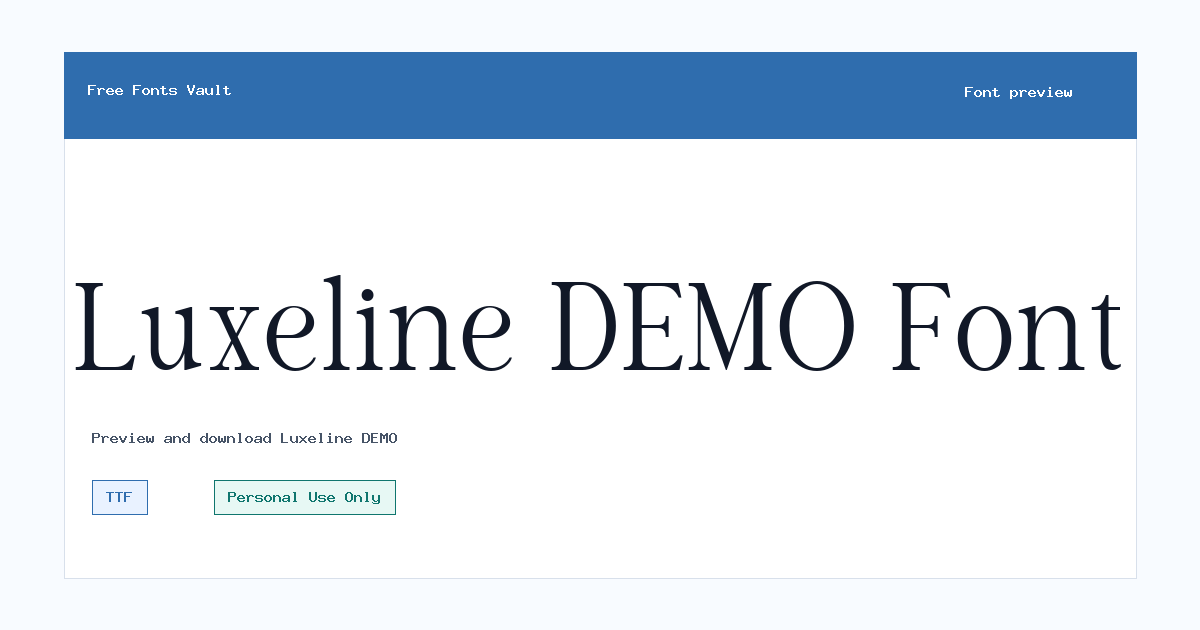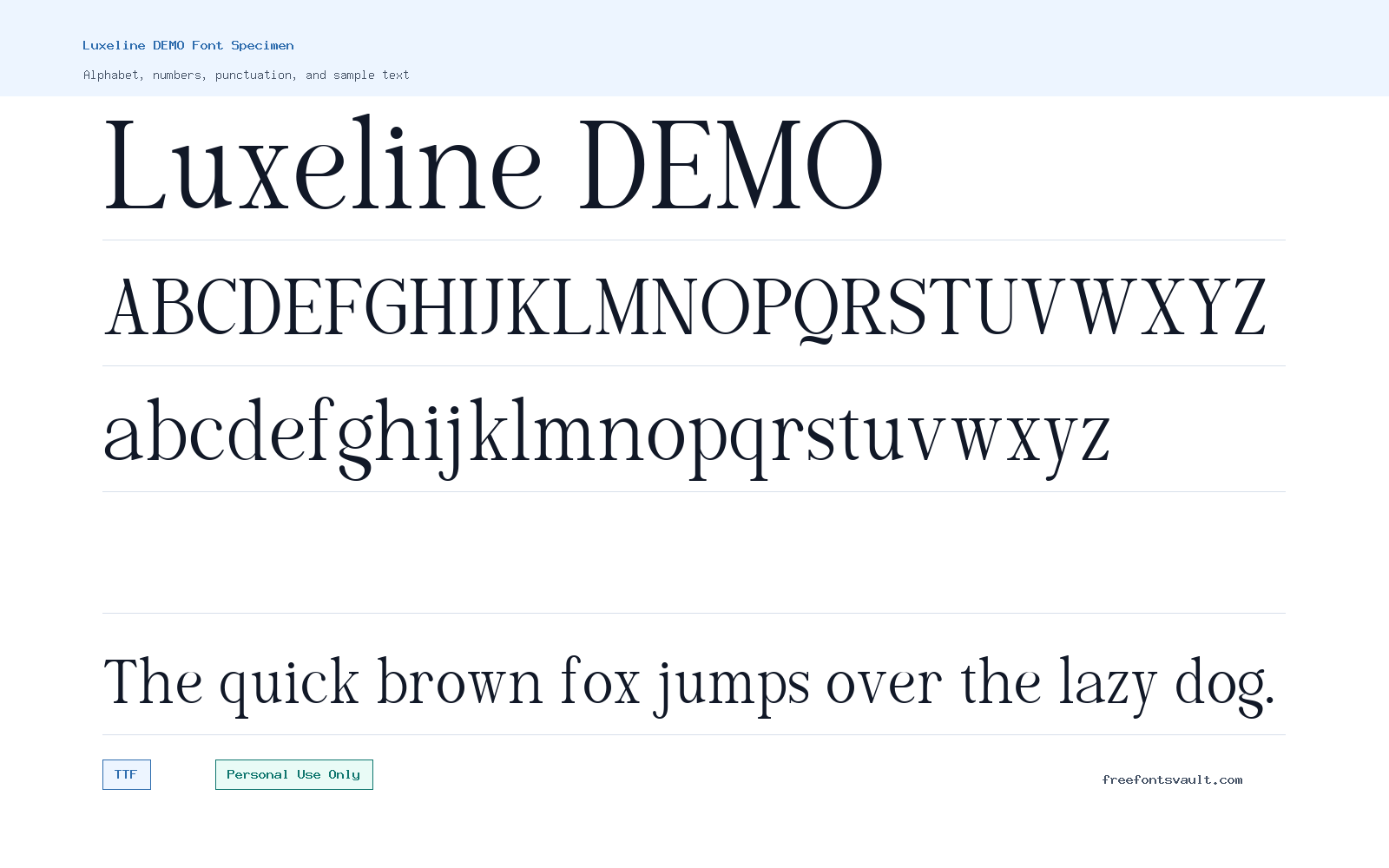
Luxeline DEMO
Luxeline DEMO is a personal-use serif font with a polished, display-ready feel. It is best treated as a title and branding font: something to test in short words, names, headlines, posters, and visual mockups before deciding whether it fits your project.
About Luxeline DEMO Font
Luxeline DEMO is a regular-weight TTF font from Say Studio. The name and file suggest a demo release, so the safest way to use it is for personal projects, previews, practice layouts, and non-commercial design tests unless you confirm broader rights from the font owner. Its serif structure makes it a natural option for layouts that need a more refined tone than a plain sans serif. Try it in brand names, editorial-style headings, invitation concepts, quote graphics, packaging mockups, and poster titles where the font can be shown at a larger size.
Because only the regular style is listed, plan your hierarchy around size, spacing, contrast, and supporting fonts rather than relying on a full family of weights. Luxeline DEMO should work best where the text is short enough for the letter shapes to be noticed. For longer paragraphs, pair it with a clean, readable sans serif or a quiet text serif and keep Luxeline DEMO for headings, initials, pull quotes, or logo-style text. If you are designing a logo, test the exact words in uppercase, lowercase, and title case, then check the spacing between tricky letter pairs before exporting artwork.
- Serif display style suited to short text, headings, logo drafts, posters, and brand mockups.
- Single regular weight, so visual hierarchy should be built with size, spacing, and pairing choices.
- Logo drafts and brand-name testing
- Editorial-style headers
- Invitation and stationery concepts
- Fashion, beauty, lifestyle, or boutique-style mockups
- Website hero headings and social media title graphics
- Short quote images or name-based designs
What is Luxeline DEMO best used for?
It is best for short display text such as logo drafts, titles, posters, invitations, brand mockups, and web hero headings. Use a more neutral font for long body copy.
What should I pair with Luxeline DEMO?
Pair it with a clean sans serif or a restrained text serif. Let Luxeline DEMO handle the heading or logo text, then use the supporting font for menus, paragraphs, captions, and small details.